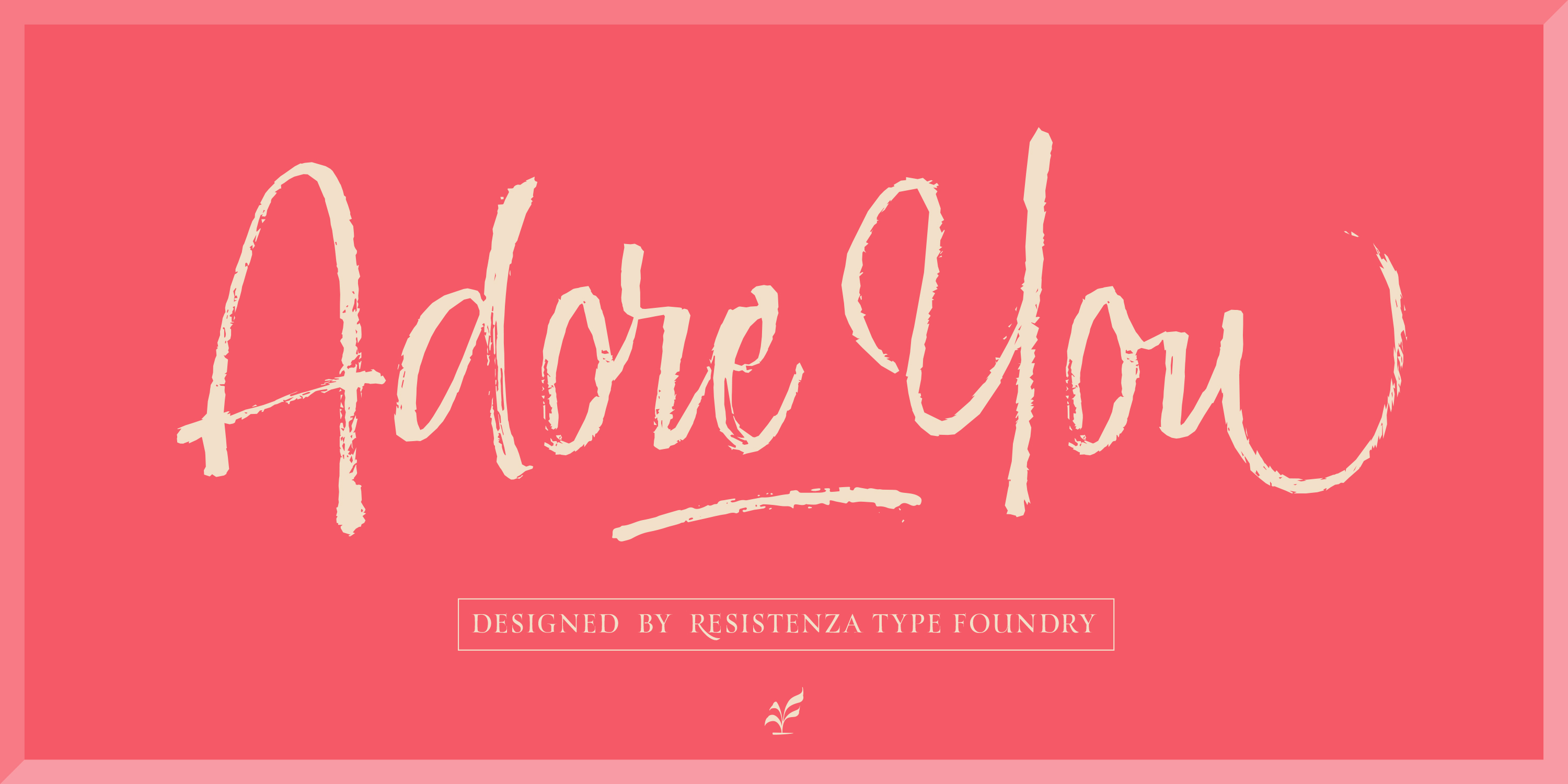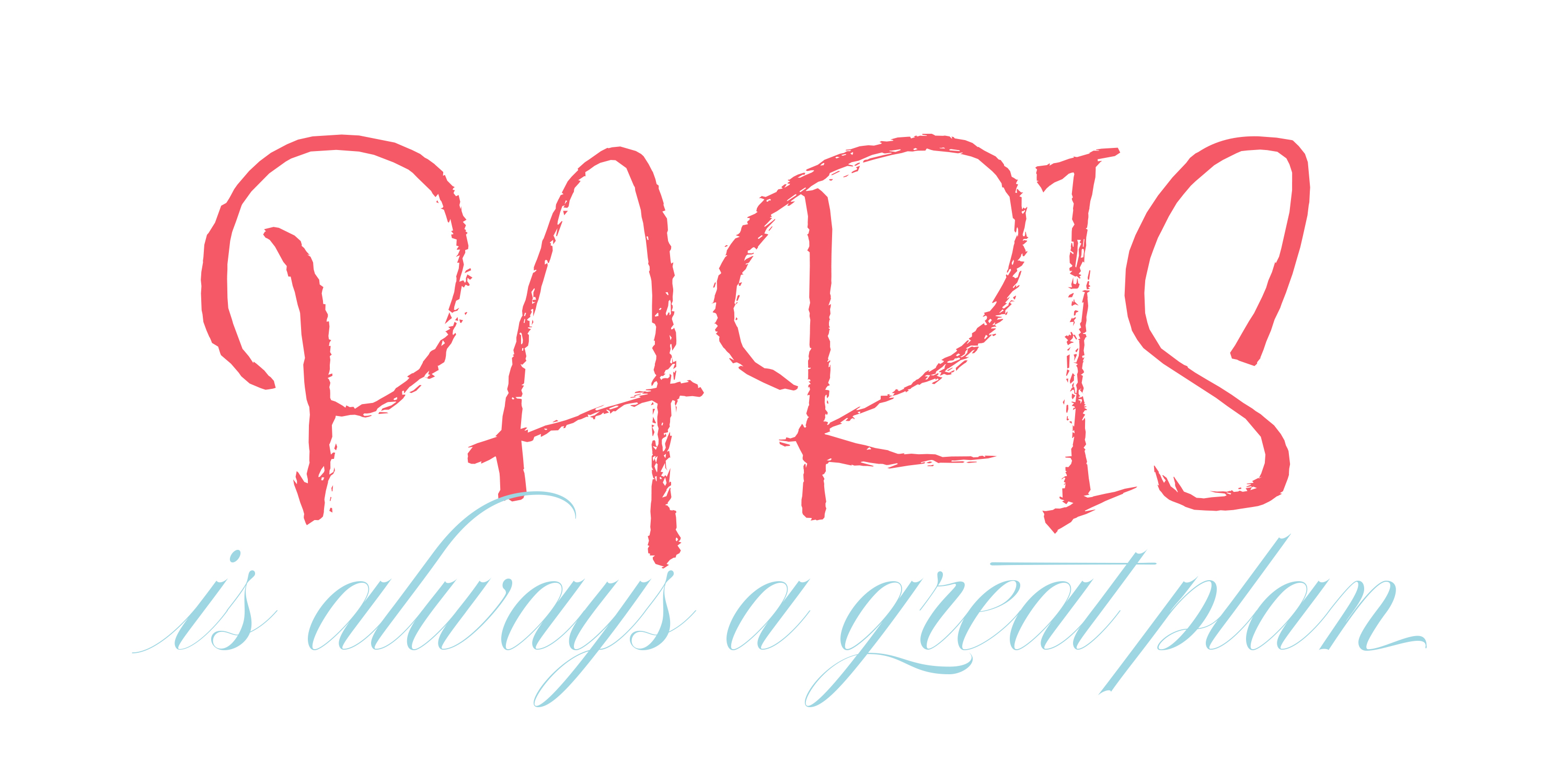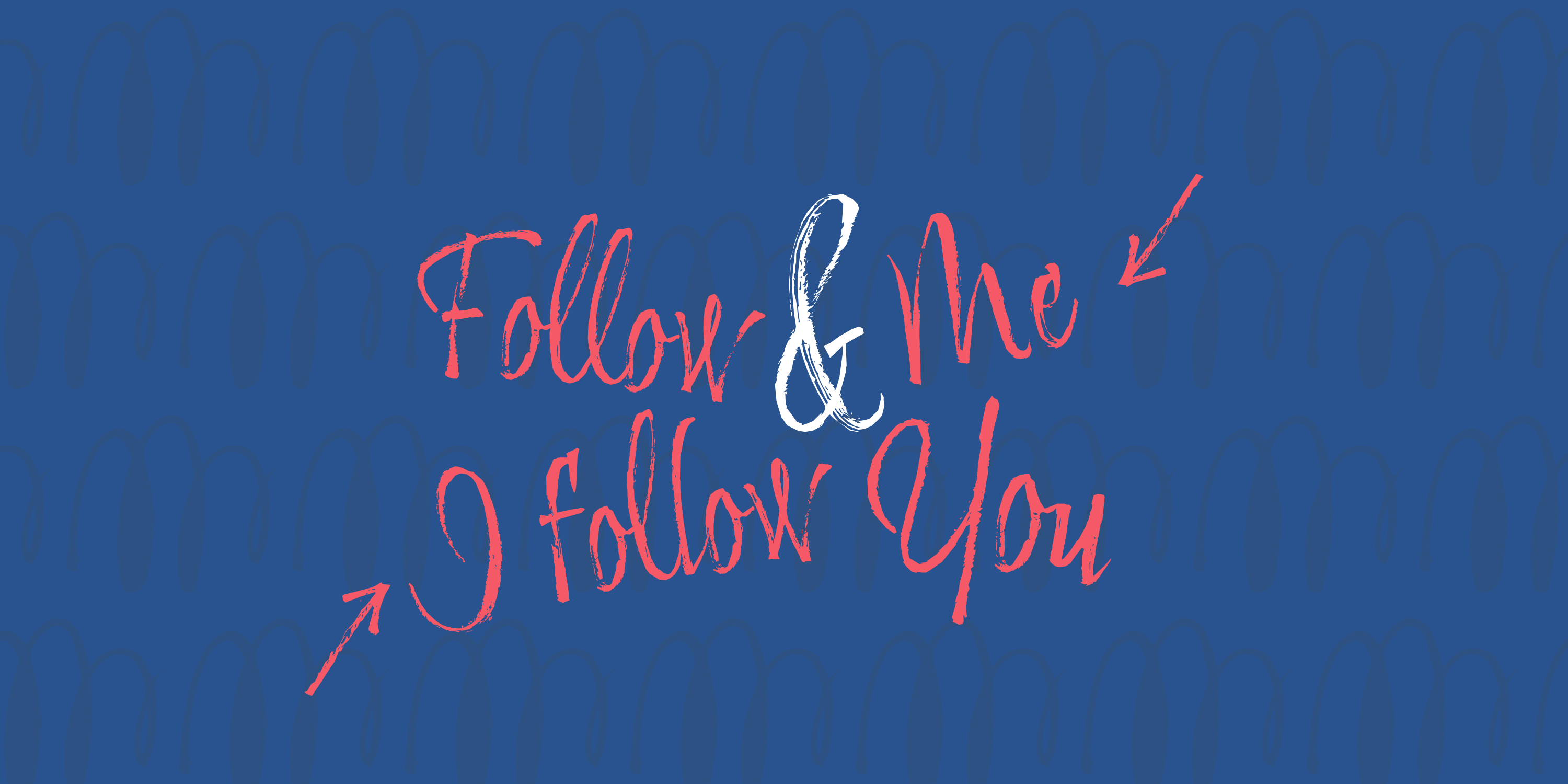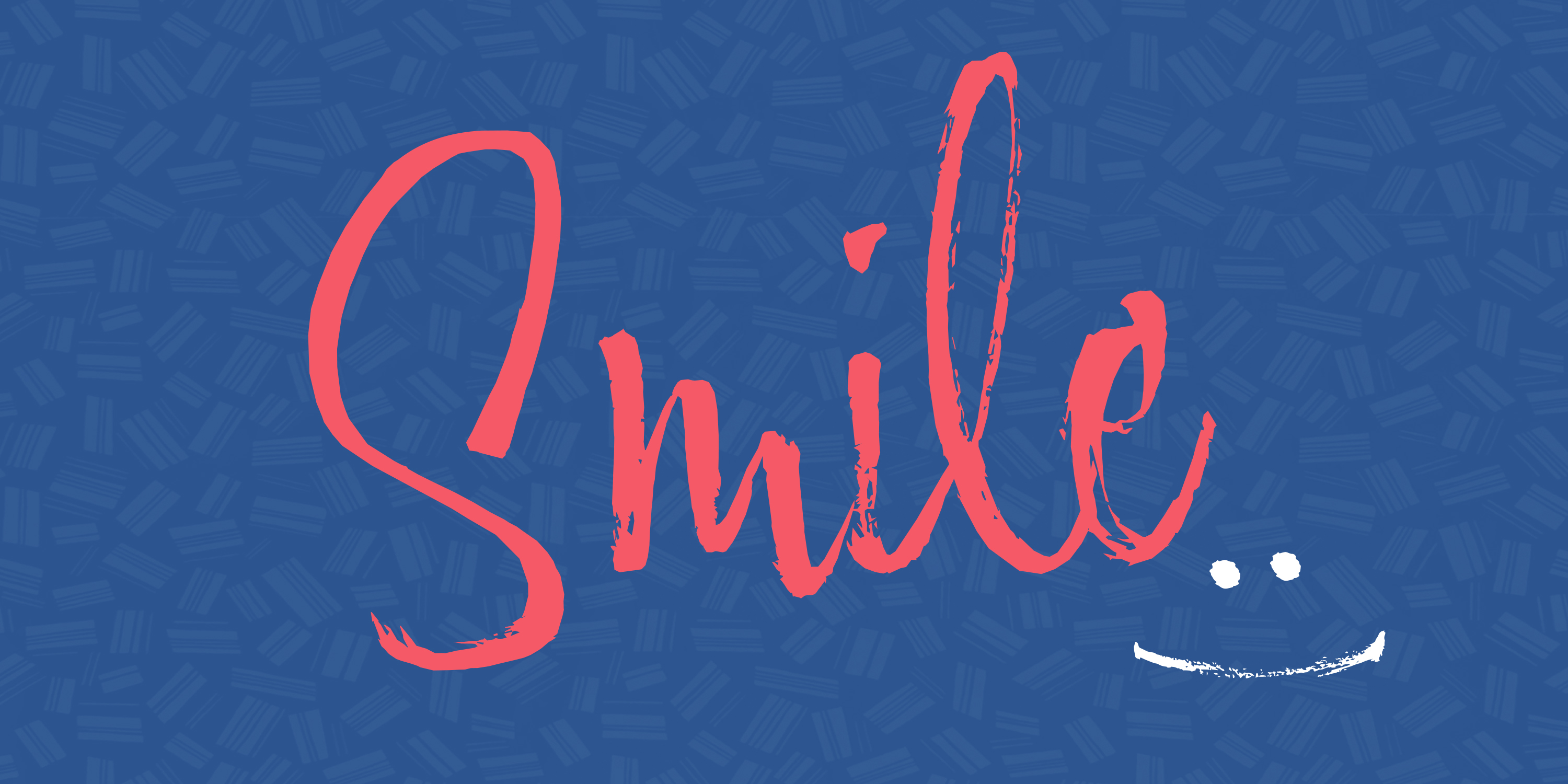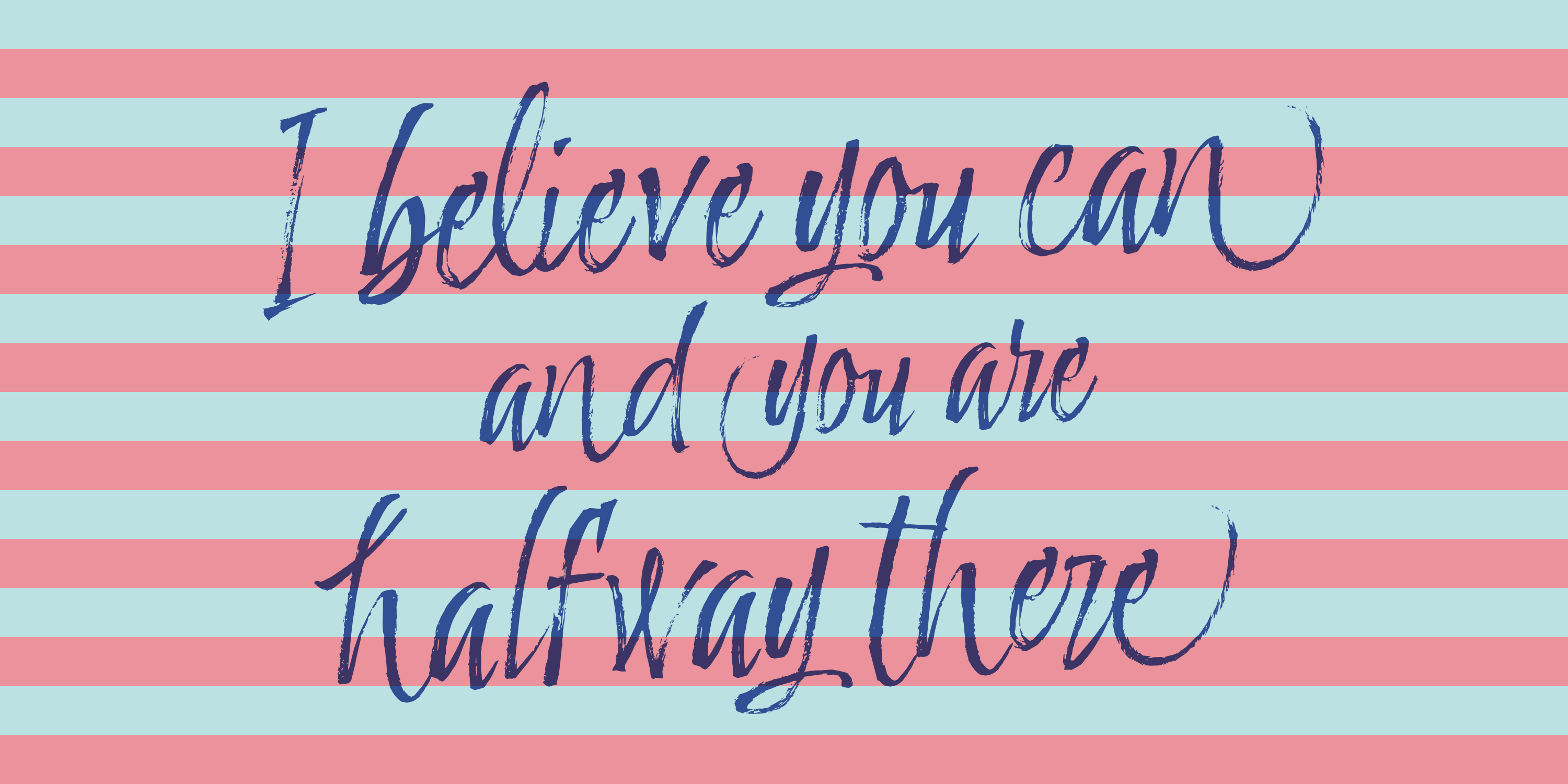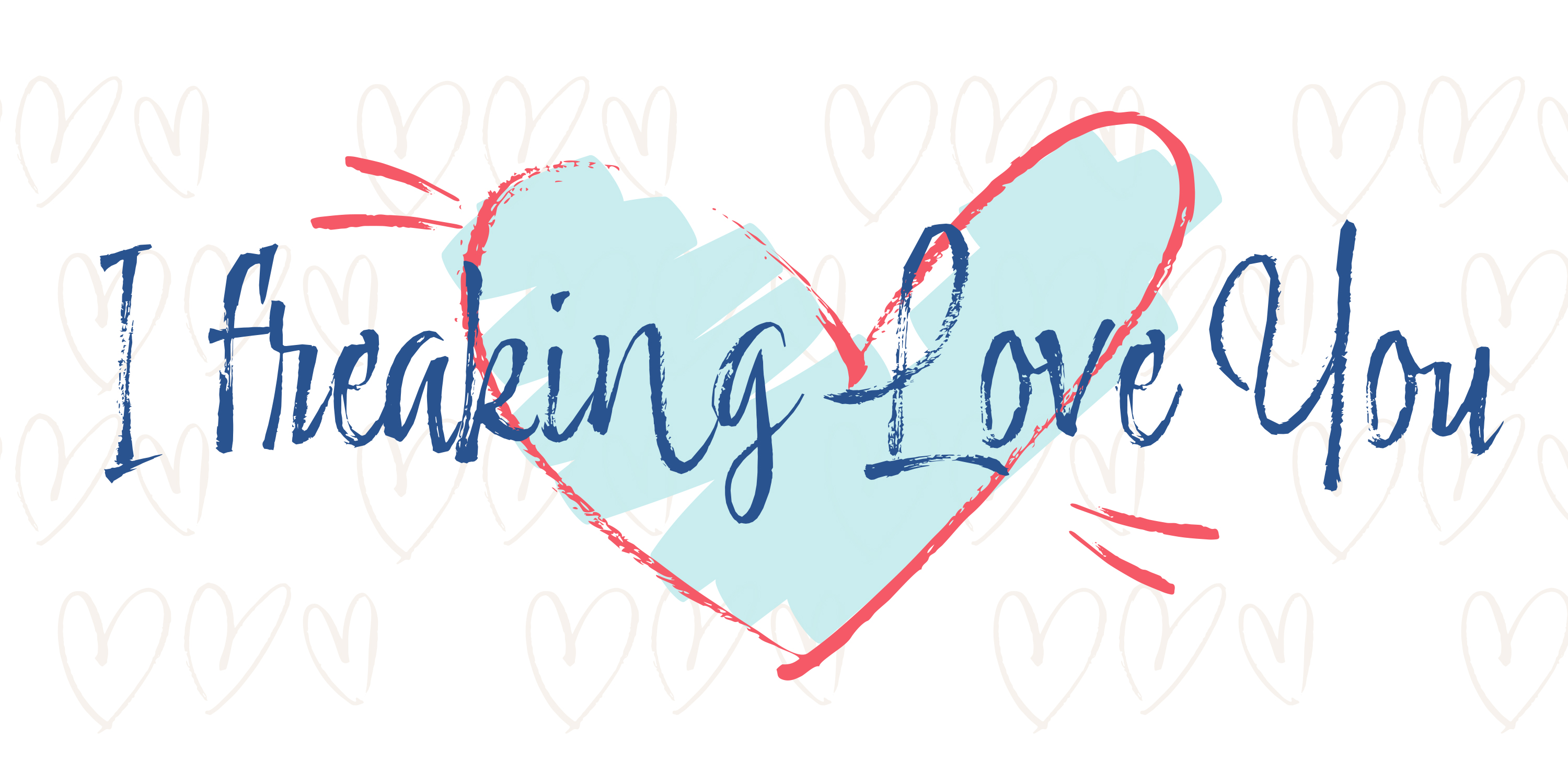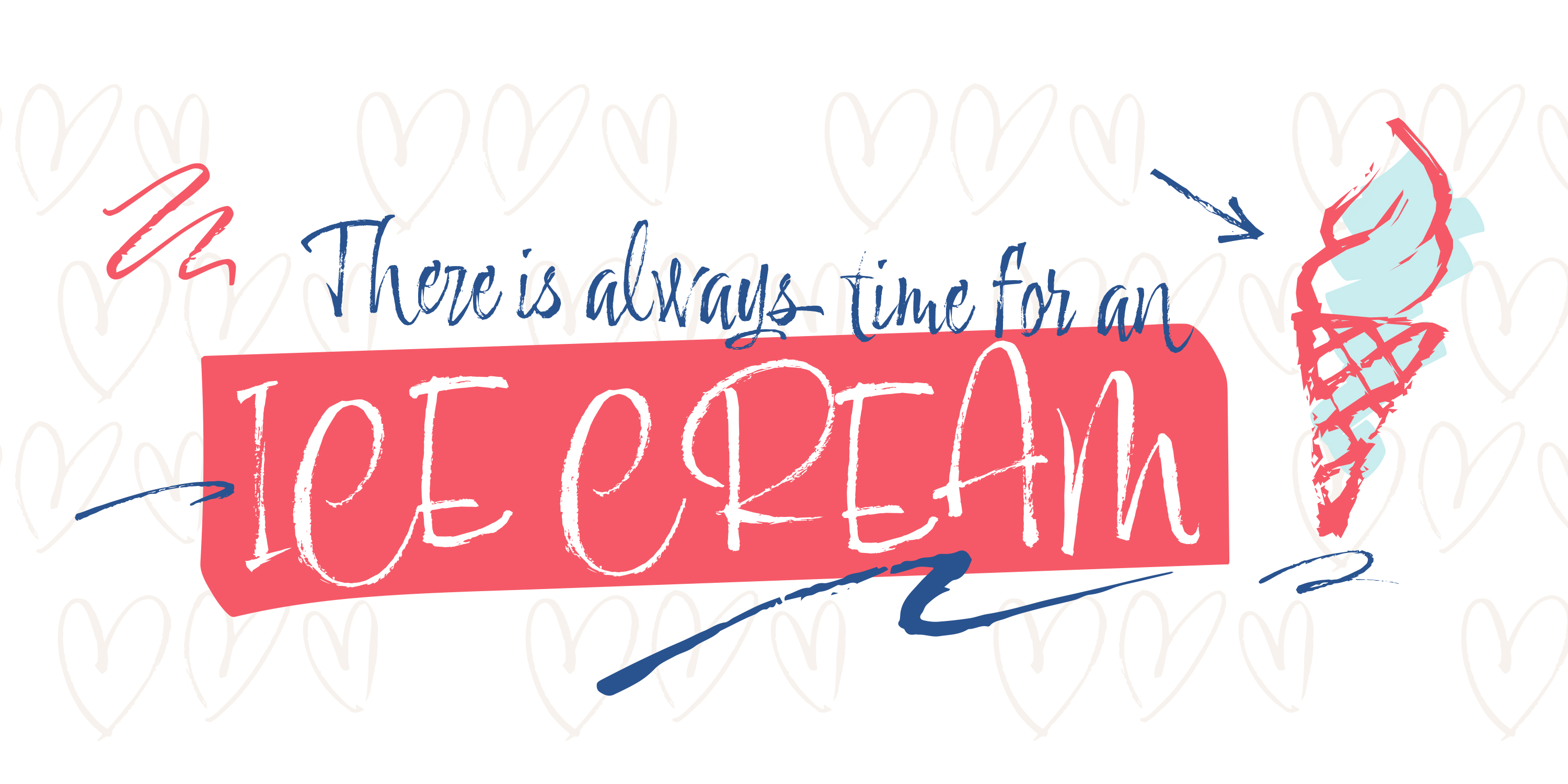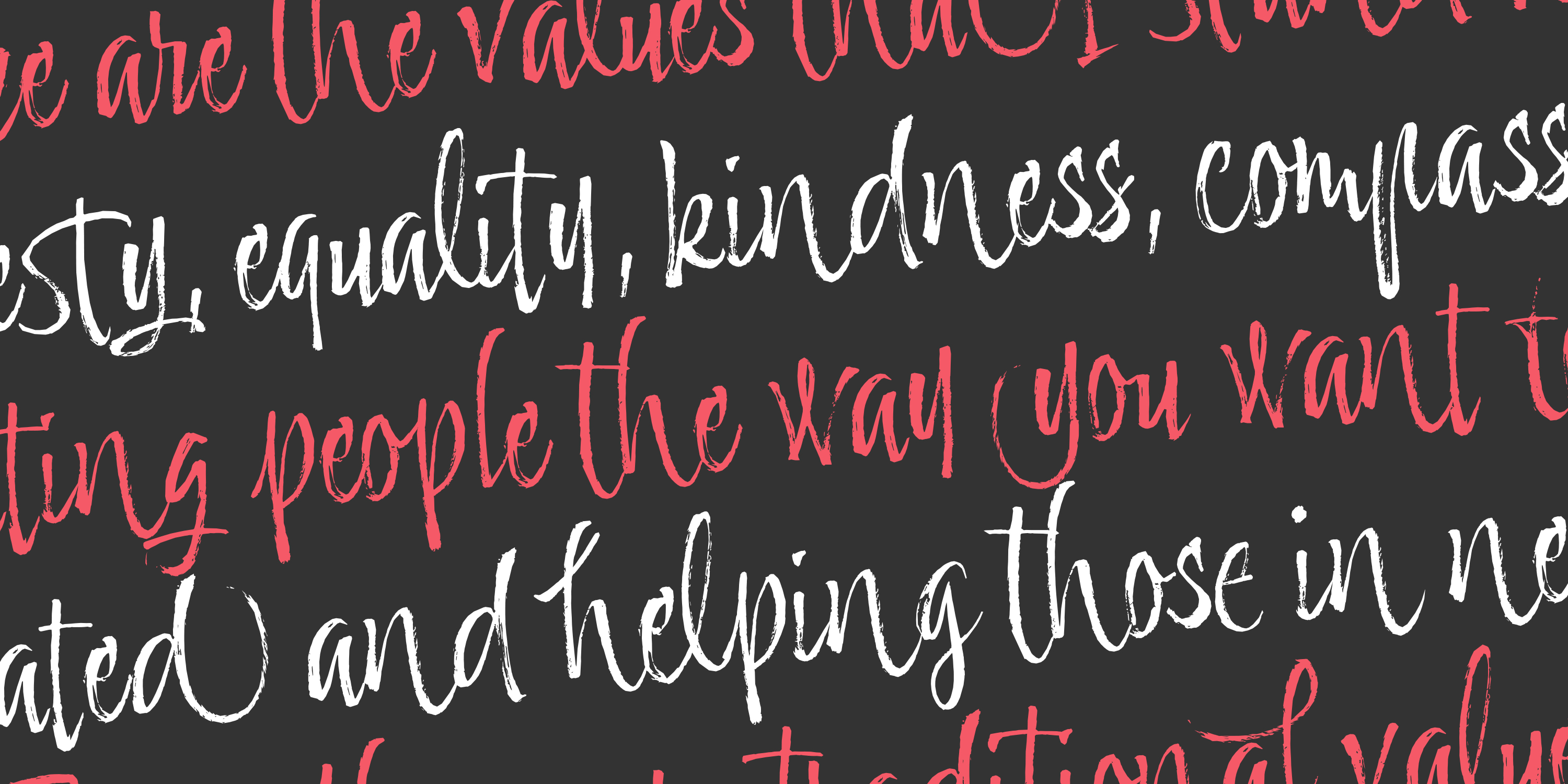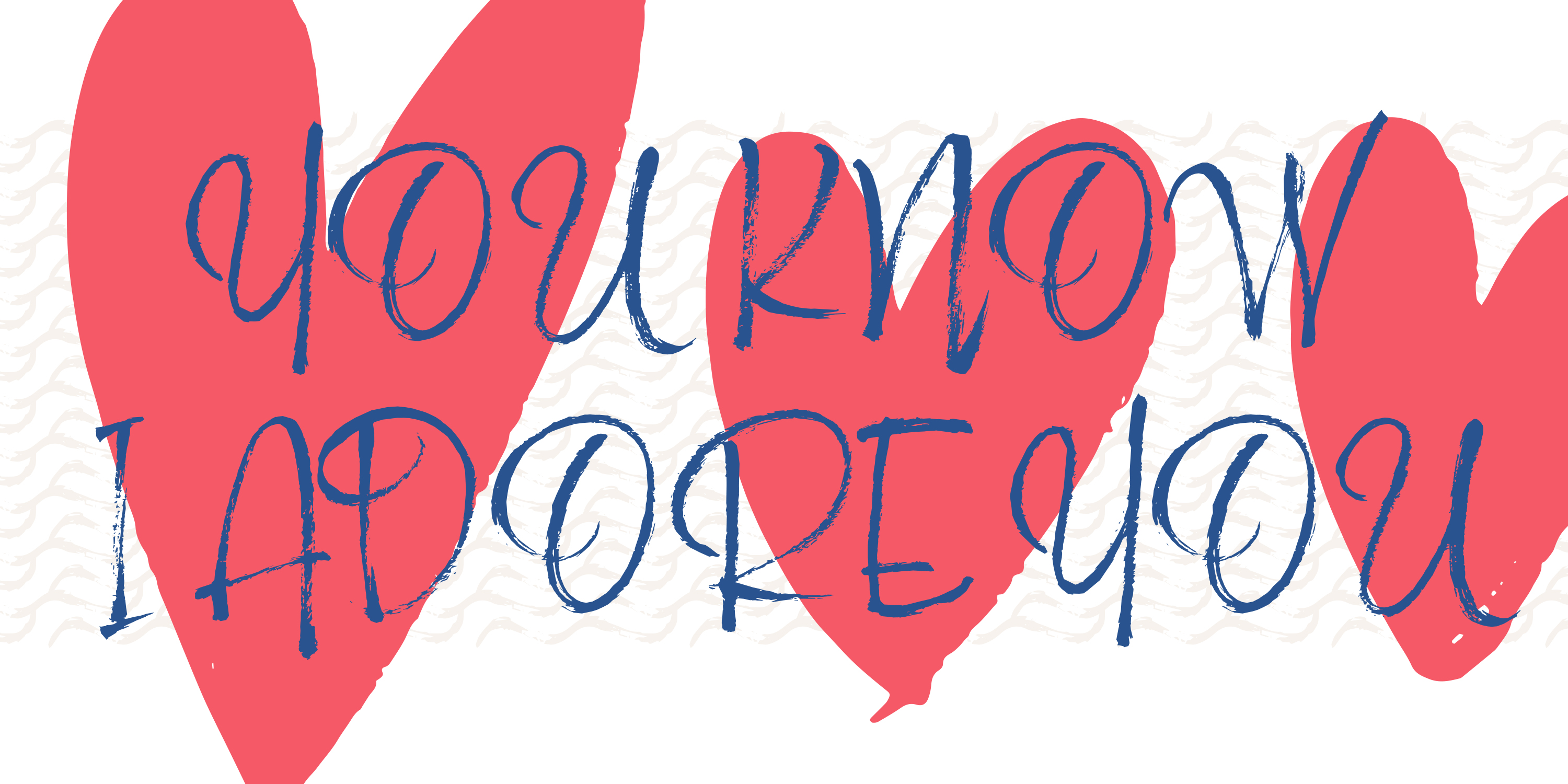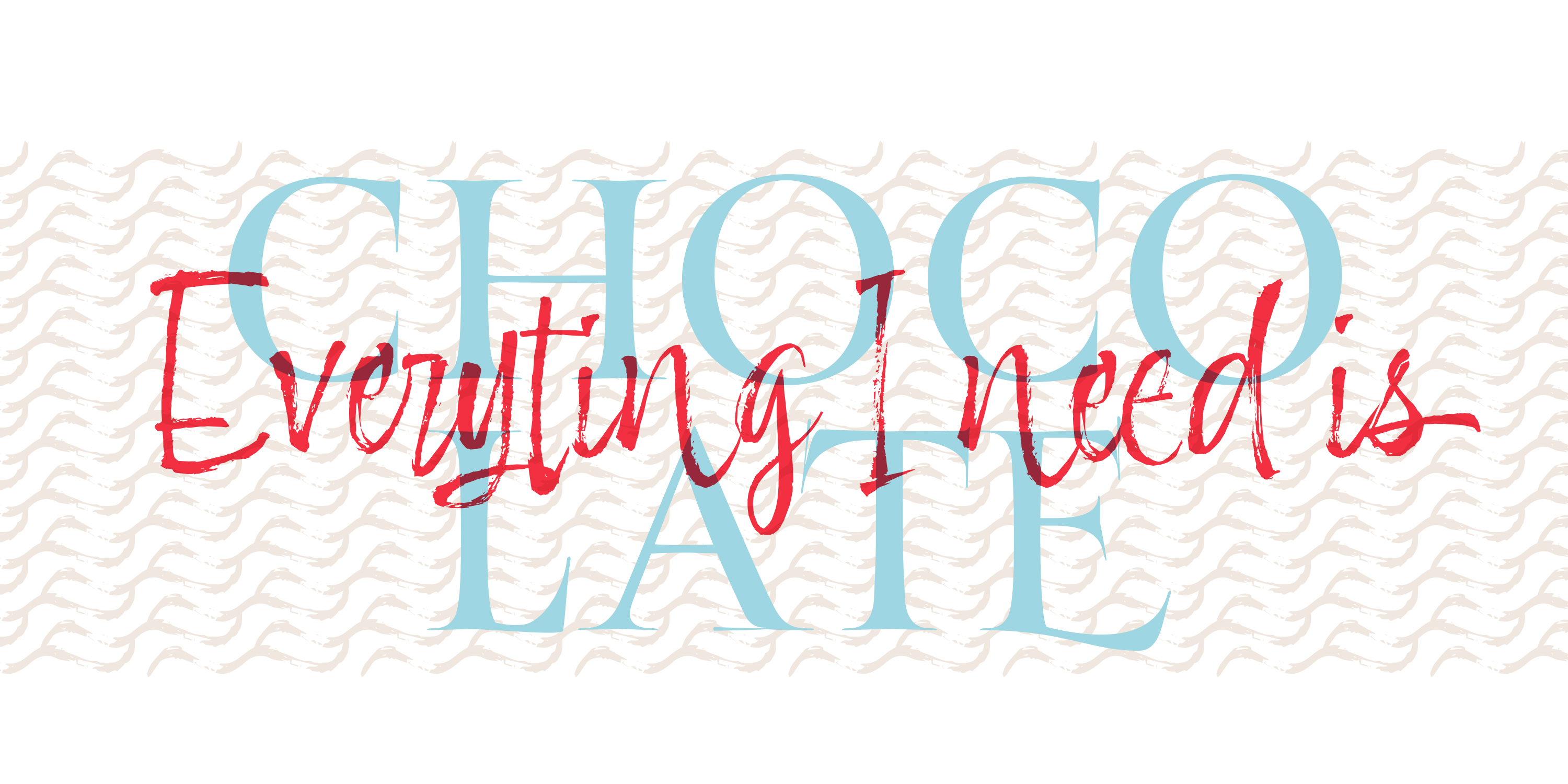
Adore You
Regular Slanted Strokes
A new script font designed with dry-brush
Adore You
Designed by Resistenza Type Foundry
These original letterforms were created by the expert hand of calligrapher Giuseppe Salerno. A fresh expressive and playful calligraphic approach, then digitized keeping textured strokes and the feeling of dry ink on paper.
2 versatile fonts, upright and slanted, and a set of strokes and lovely decorations which works on very diverse circumstances… beauty care, food, fashion, health, publishing, stationery and so many other uses.
It includes opentype features - stylistic alternates and an extended set of Ligatures to customize your text.